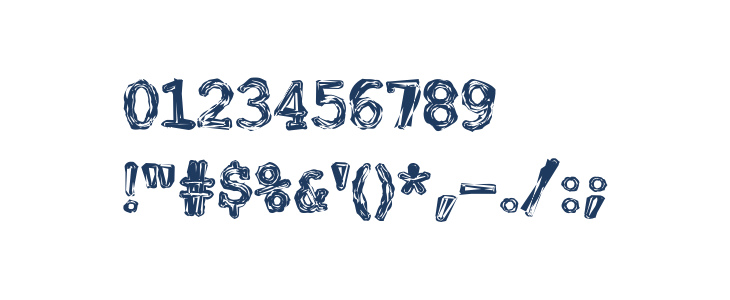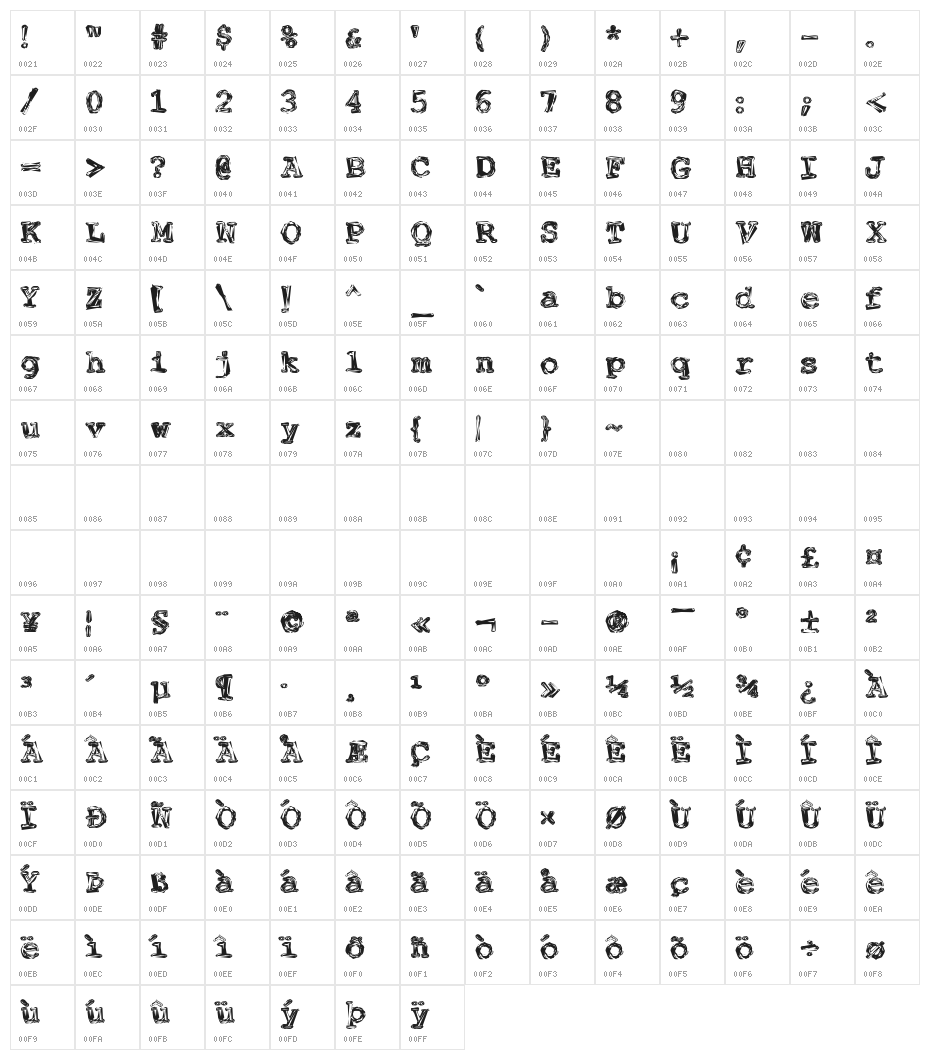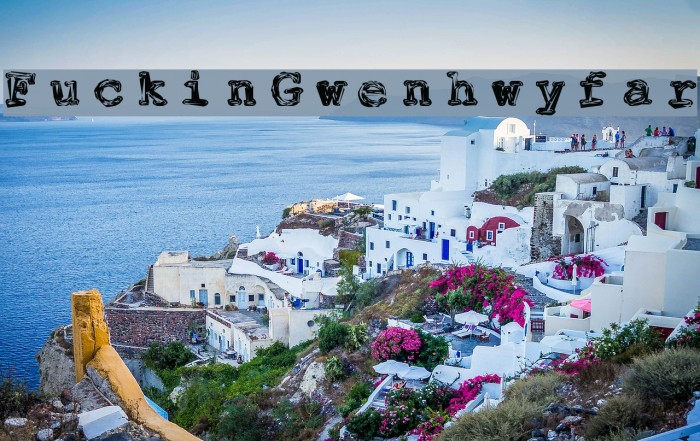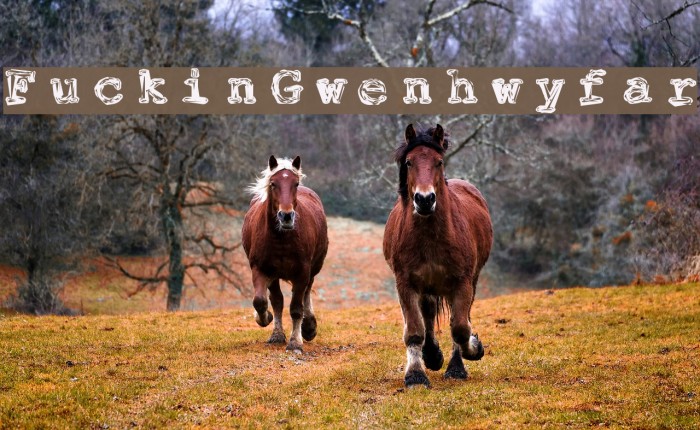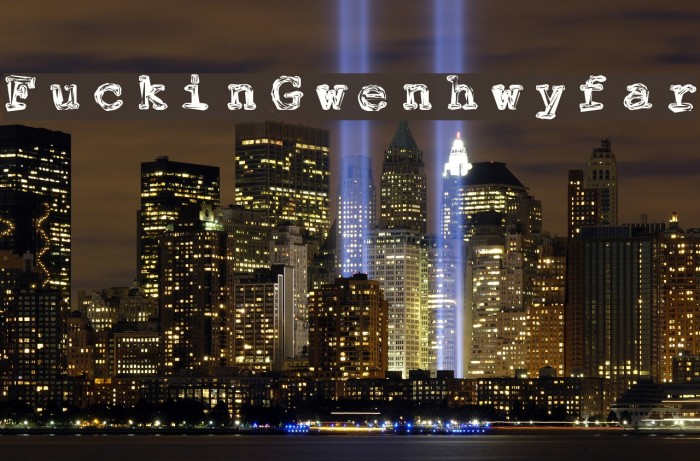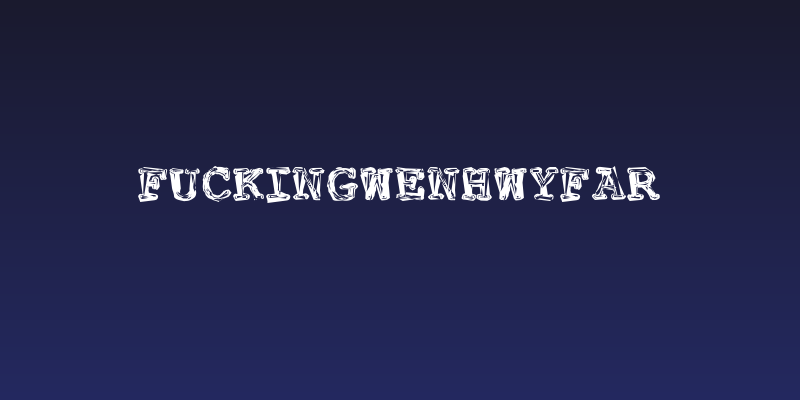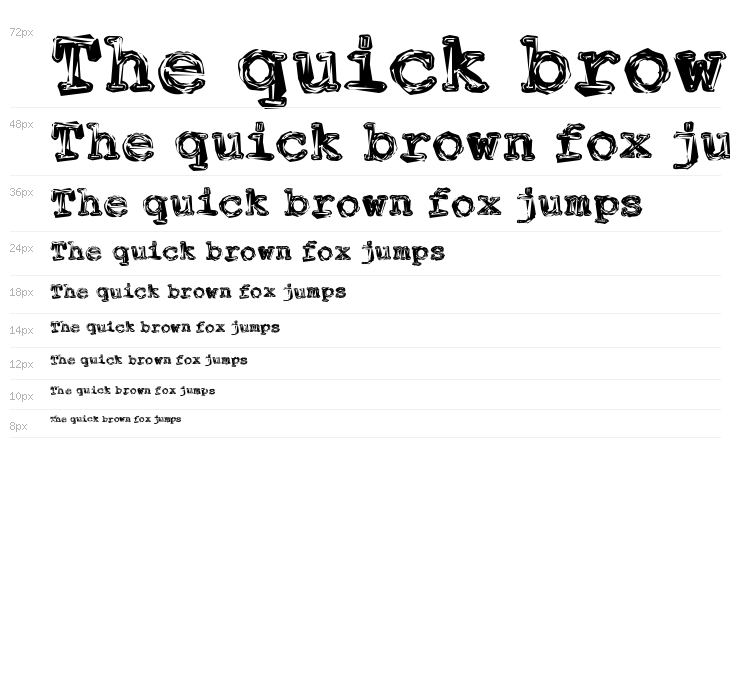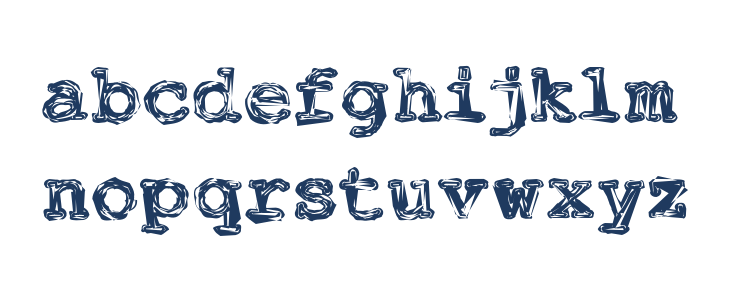
FuckinGwenhwyfar Font
FuckinGwenhwyfar Description
This font features a bold, playful design with a hand-drawn aesthetic. Each character is uniquely crafted with irregular strokes and a slightly distressed appearance, giving it a dynamic and energetic feel. The letters have a three-dimensional quality, with shadow-like effects that add depth and texture. This font's quirky and artistic style makes it stand out, perfect for projects that require a touch of creativity and individuality. The uppercase and lowercase letters maintain a consistent style, while the numbers and special characters complement the overall look with their distinct yet cohesive design.